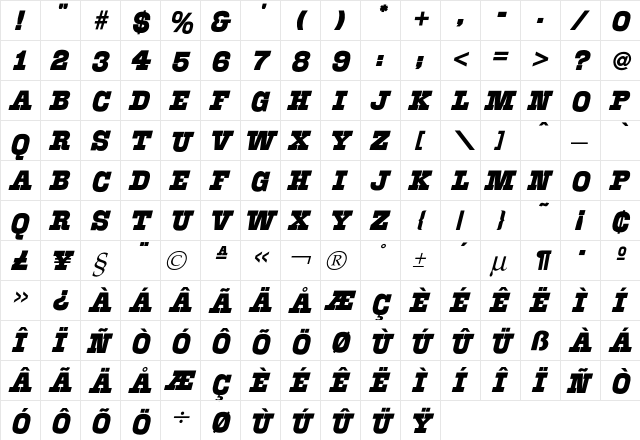
Akenaton Font
Design Context for Akenaton Typeface
Akenaton offers clean, dependable letterforms without strong stylistic allegiance, making it a practical choice for designers who need flexibility.